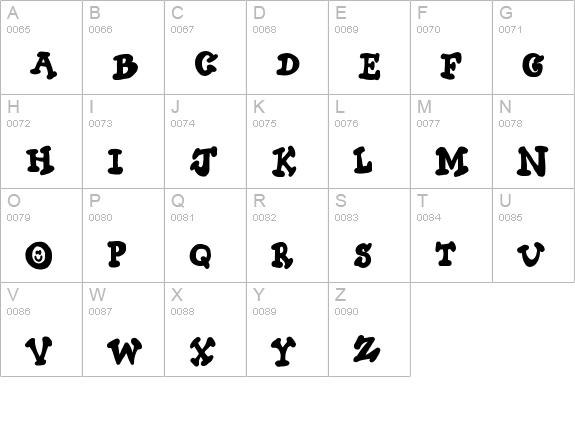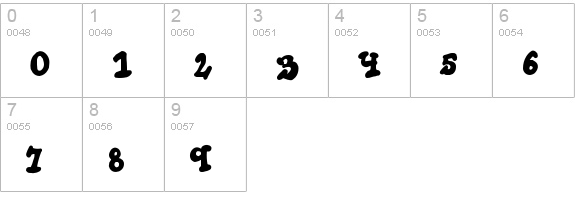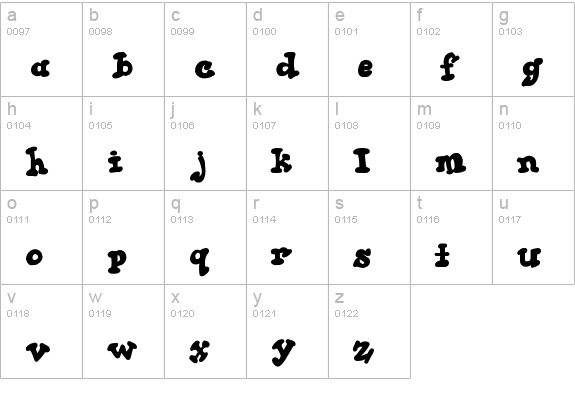
Thick Chocolat Font Details
Introducing Thick Chocolat, a delectable and bold font that will satisfy your craving for a touch of sweetness in your designs. This delectable typeface is a perfect blend of elegance and playfulness, making it suitable for a wide range of projects. With its thick and luscious letterforms, Thick Chocolat captures the essence of a rich and indulgent chocolate treat. Each character is meticulously crafted with a smooth and creamy texture, creating a mouthwatering visual experience that is sure to captivate your audience. Whether you're designing a menu for a gourmet bakery, creating a tempting logo for a luxurious chocolatier, or crafting irresistible packaging for a decadent dessert brand, Thick Chocolat will elevate your designs to a whole new level of deliciousness. But that's not all - Thick Chocolat comes with an extra treat for designers. It is freely available to download at FontsMarket.com, offering you the opportunity to add this scrumptious font to your collection without breaking the bank. Now you can enjoy the irresistible charm and versatility of Thick Chocolat in all your creative endeavors, without any cost. So go ahead and indulge in the mouthwatering beauty of Thick Chocolat. Download this font for free at FontsMarket.com and let your designs savor the richness and elegance that only Thick Chocolat can provide.